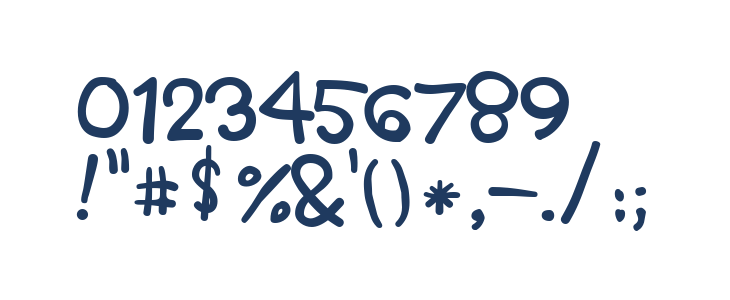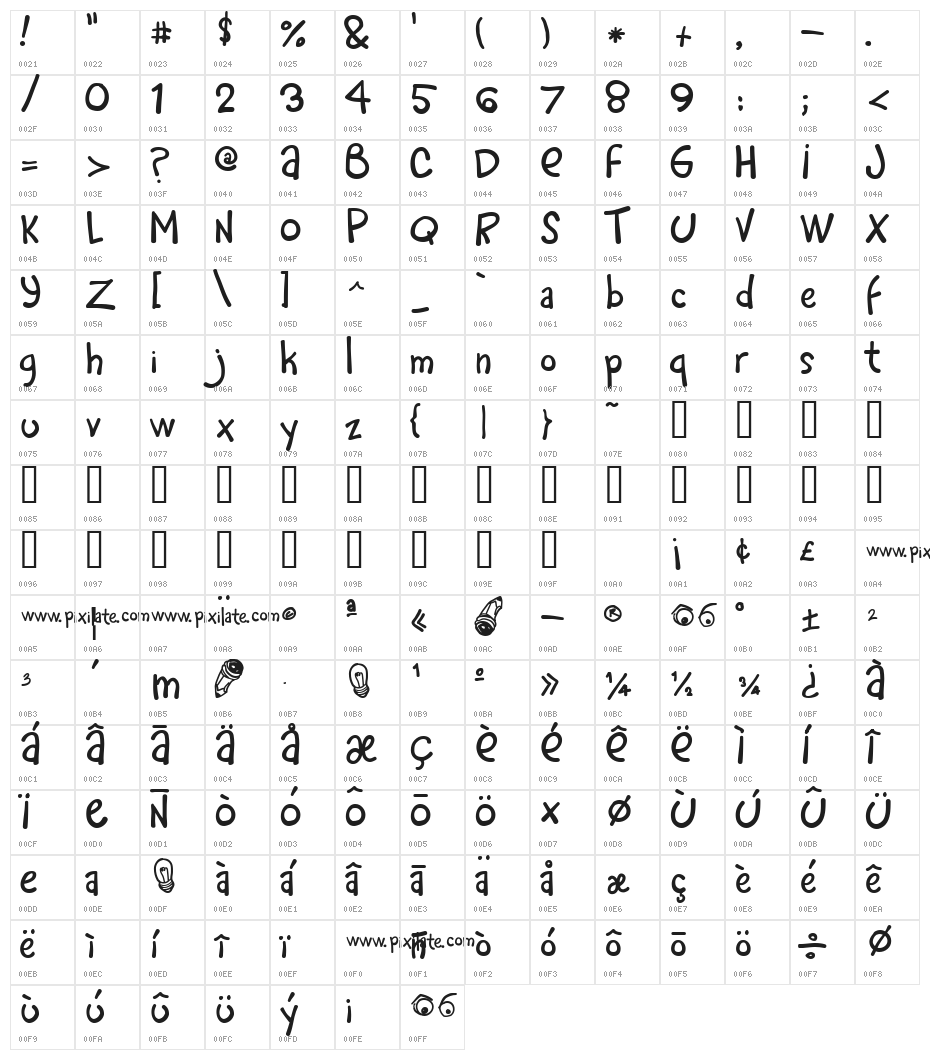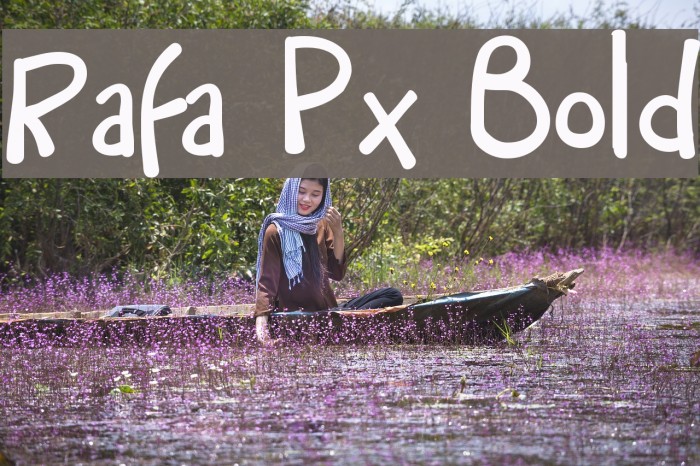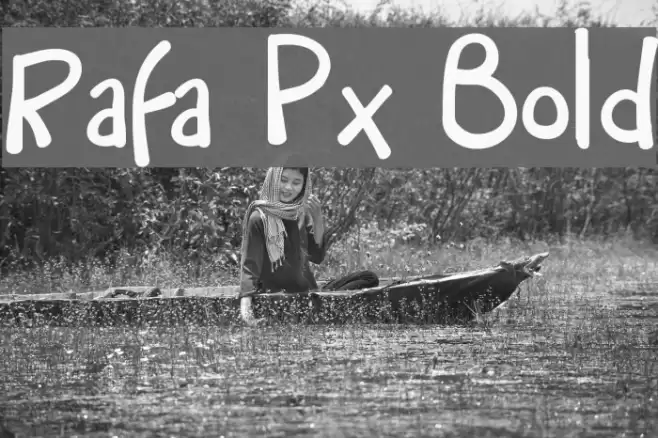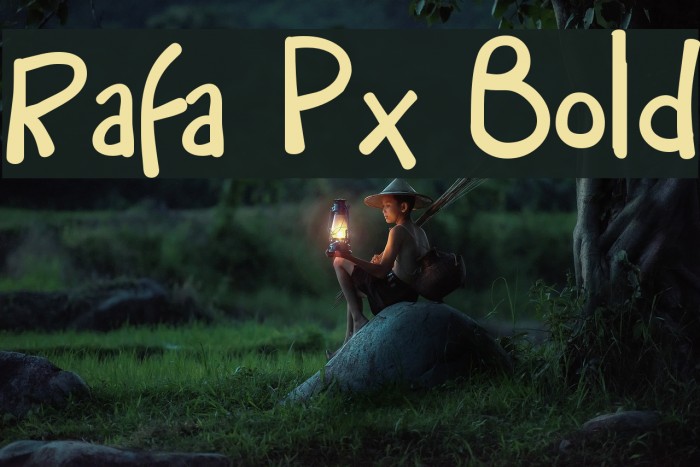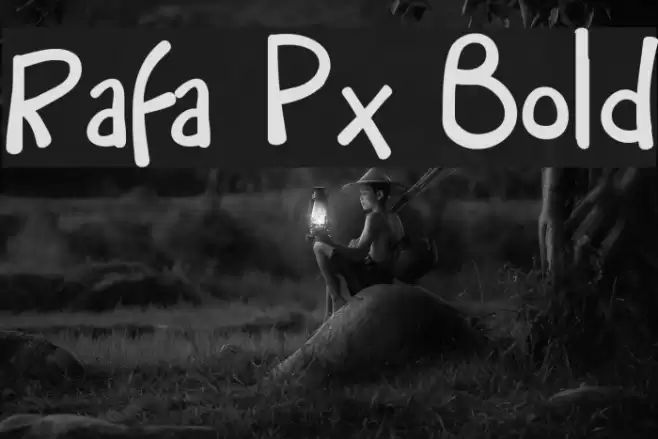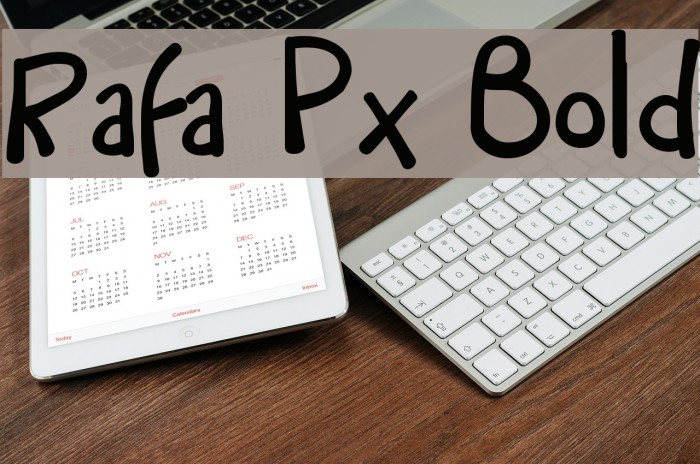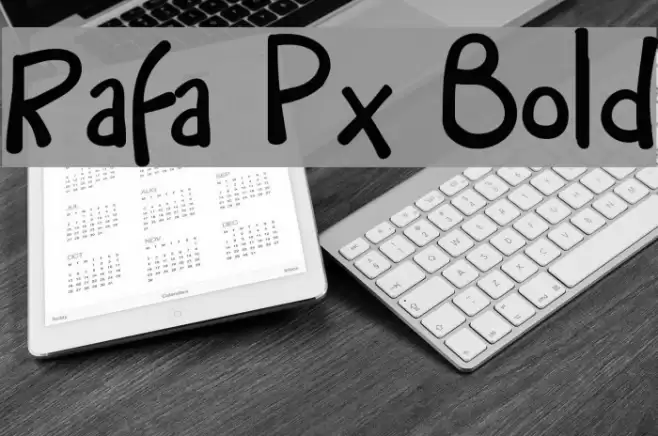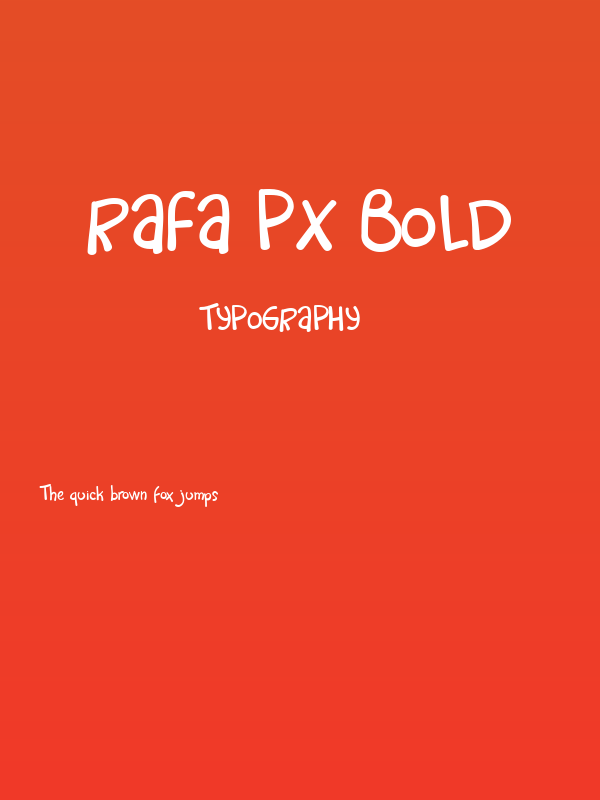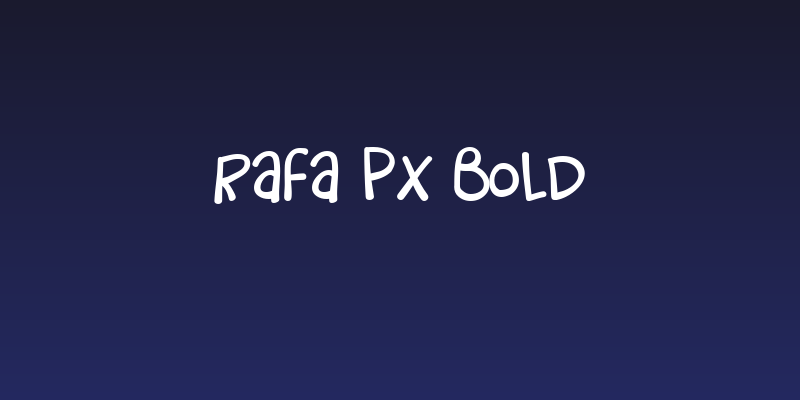
Rafa Px Bold Font
Rafa Px Bold Description
This playful and bold font features a handwritten style with a casual and friendly appearance. The letters are rounded and slightly irregular, giving it a whimsical and approachable feel. The uppercase and lowercase characters maintain a consistent style, with the uppercase being slightly larger and more pronounced. Numbers and special characters are included, matching the overall playful aesthetic. The strokes are thick and uniform, contributing to its bold presence, while the spacing between characters is moderate, ensuring readability.
| Proposed Projects | Ideal for children's books, playful branding, greeting cards, and informal invitations. |